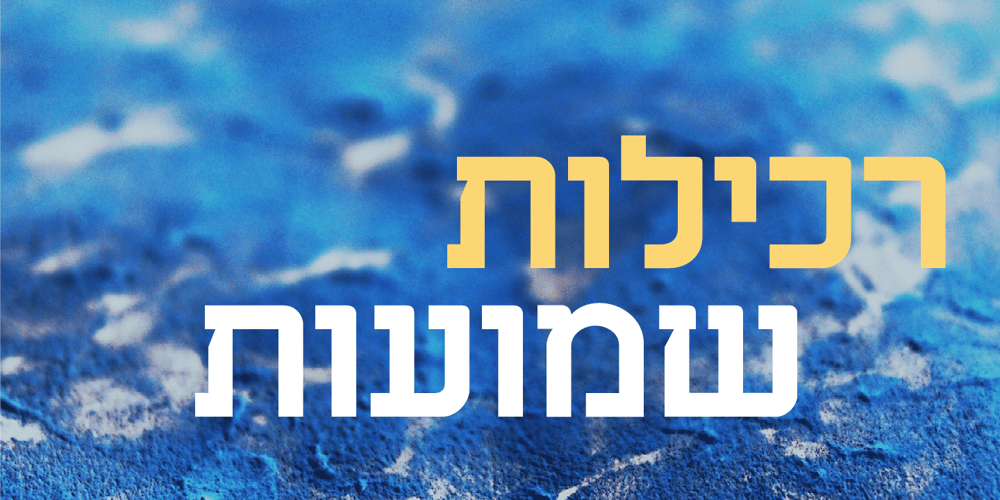
Aharoni MF
Aharoni MF font
Aharoni MF Font Family was designed by Tuvia Aharoni and published by Masterfont. Aharoni MF contains 7 styles and family package options. One of the famous Hebrew typeface ever, revived with new weight, allows lots of combinations.